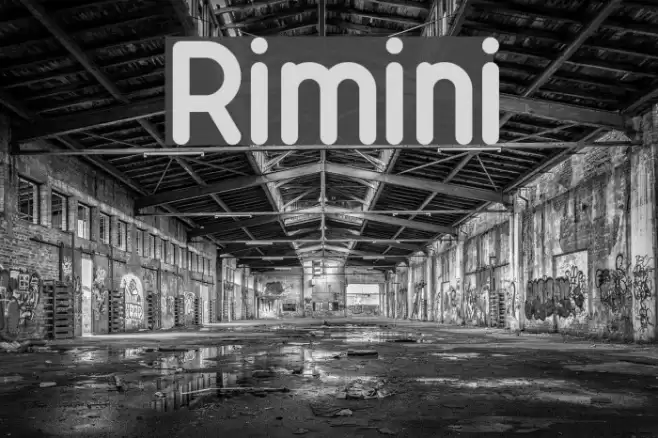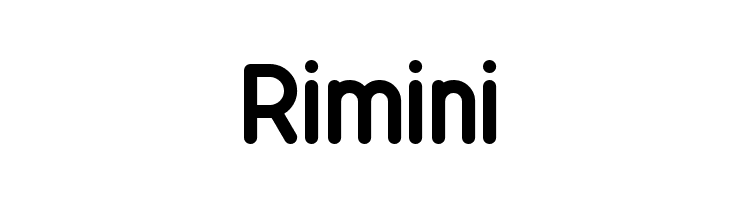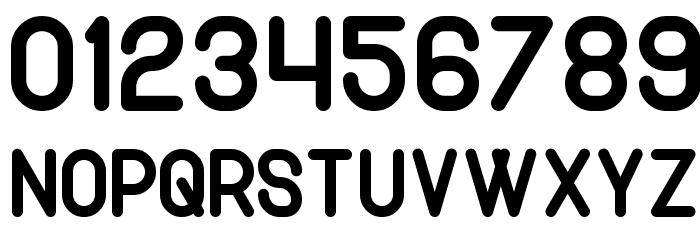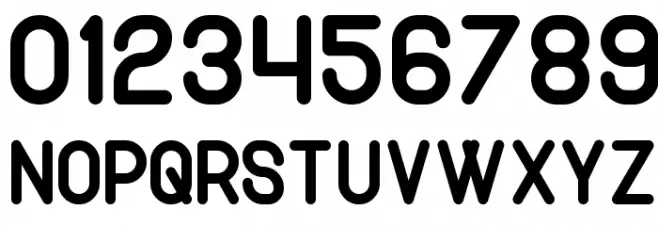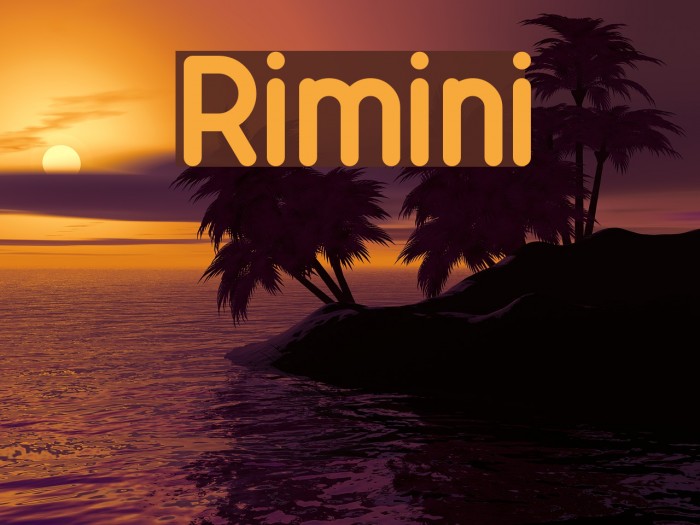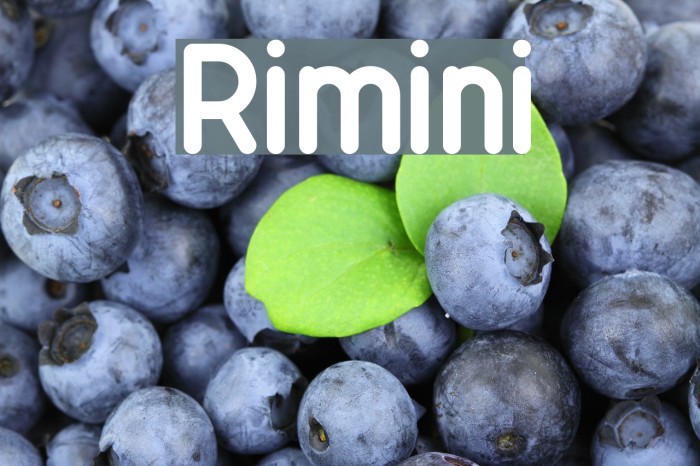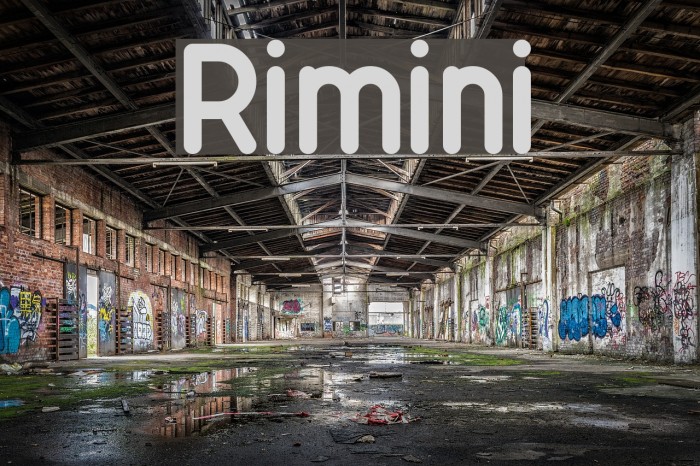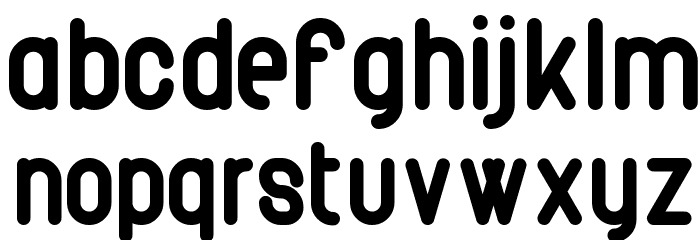
Rimini Font
Rimini Description
This font features a modern, rounded sans-serif style with smooth curves and a clean appearance. The characters are uniform in width, contributing to a balanced and harmonious look. The rounded edges give it a friendly and approachable feel, while maintaining a professional and contemporary aesthetic. The numbers and special characters are consistent with the overall design, ensuring readability and versatility. This font is well-suited for digital and print media, offering clarity and style in various applications.
A modern, rounded sans-serif font with smooth curves and a clean appearance from Uncategorized fonts.
- Proposed Projects: Ideal for branding, web design, advertising, and user interfaces due to its readability and modern style.